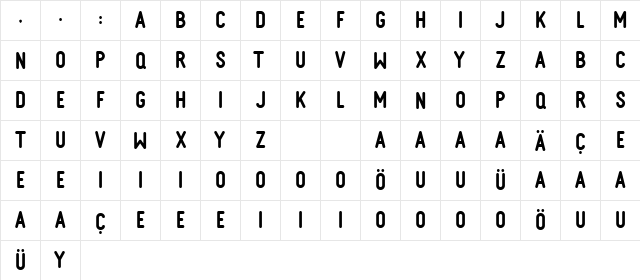
Kohne Makina Regular Font Preview
Kohne Makina Regular
Kohne Makina Regular Font Details
| Foundry | Krafti Lab |
| Designer | Onur Cem TAN |
Design Context for Kohne Makina Typeface
Kohne Makina takes a measured approach to typography — its balanced proportions and neutral character make it a reliable workhorse for both digital and print work.